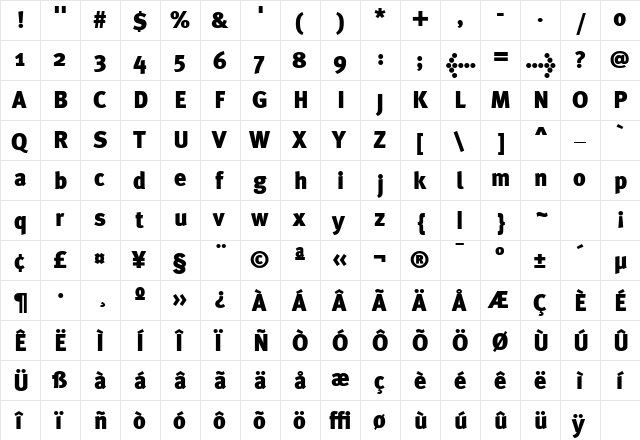
MetaPlusBlack Roman
Design Context for MetaPlusBlack Typeface
MetaPlusBlack takes a measured approach to typography — its balanced proportions and neutral character make it a reliable workhorse for both digital and print work.
Pro Tip: Use MetaPlusBlack in both headline and body roles to test its range before committing to a single application.